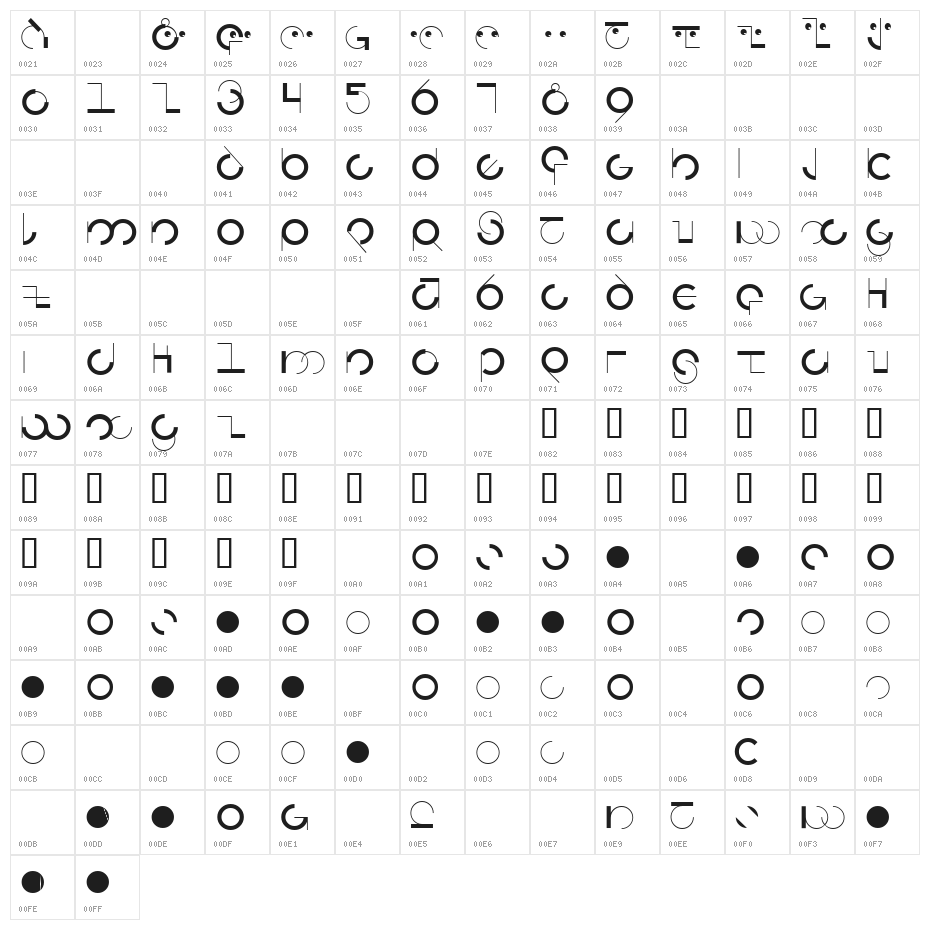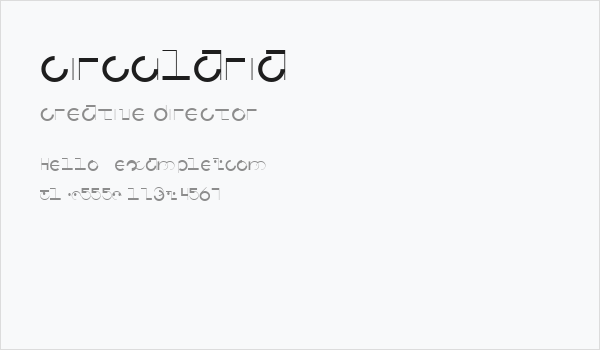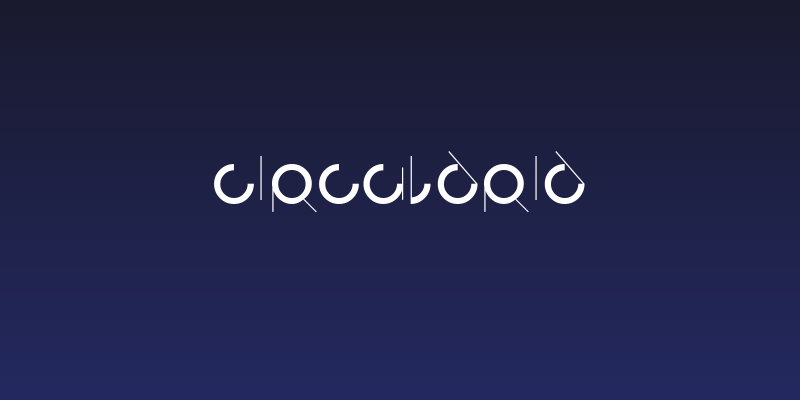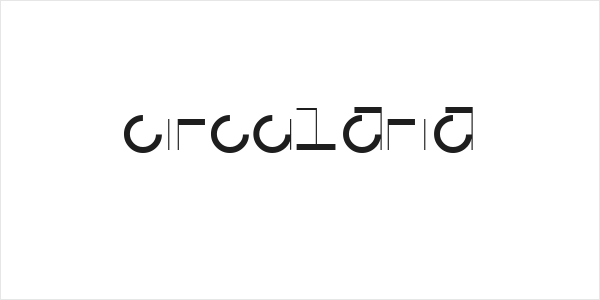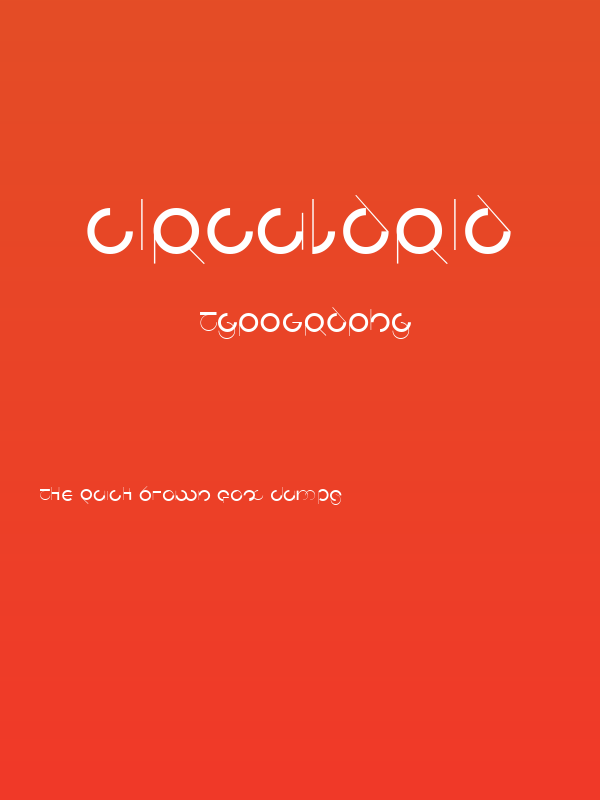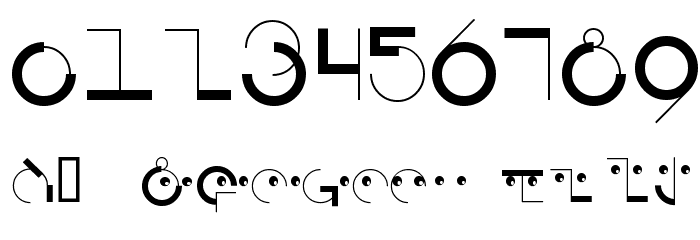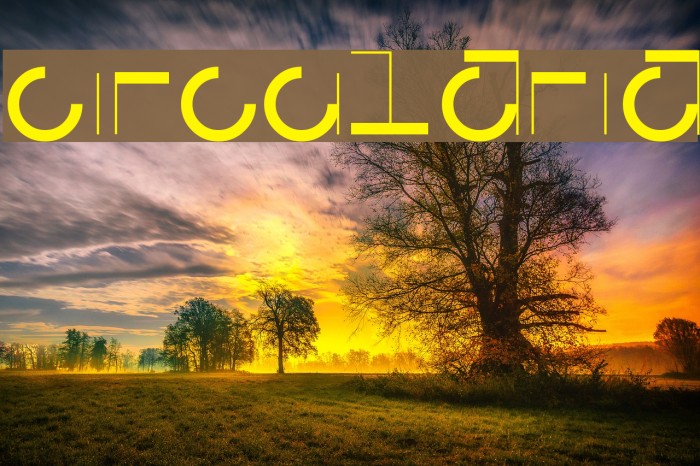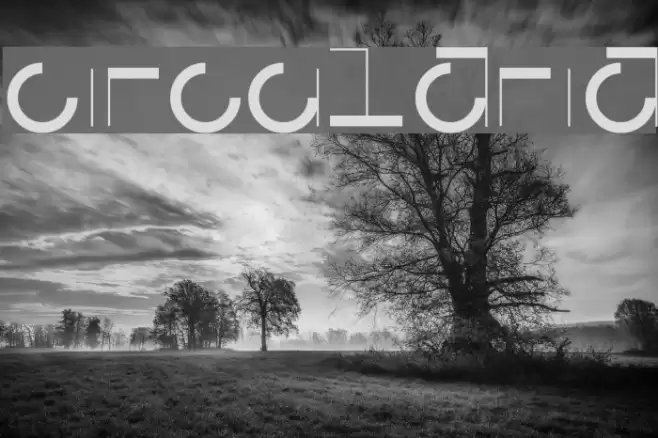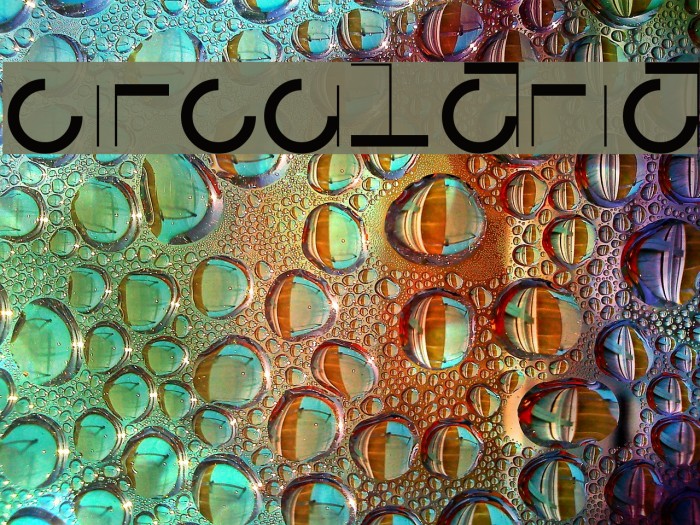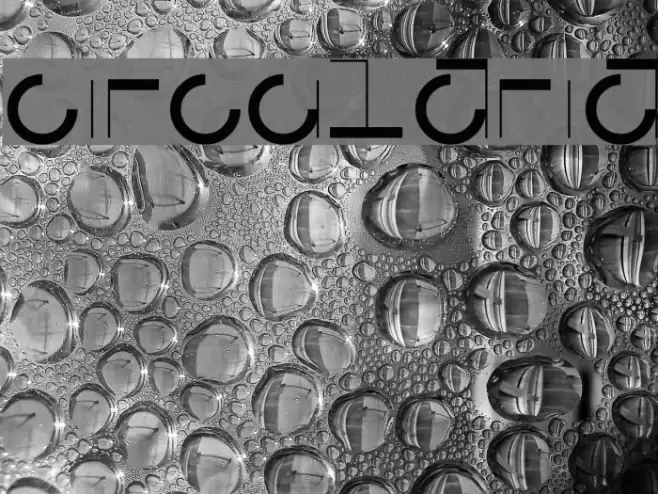
Circularia Font
Circularia Description
This font features a unique and modern design with a circular and geometric aesthetic. The characters are crafted with a mix of thick and thin strokes, creating a high contrast that draws attention. The uppercase and lowercase letters share a consistent style, with rounded edges and a futuristic look. Numbers and special characters maintain the same design principles, ensuring a cohesive appearance across all elements. The overall style is both artistic and functional, making it suitable for creative projects.
| Overall Style | Modern, Decorative |
| Use Case | Logos, Headlines, Posters |
| Proposed Projects | Ideal for branding, logos, posters, and digital media that require a modern and artistic touch. |